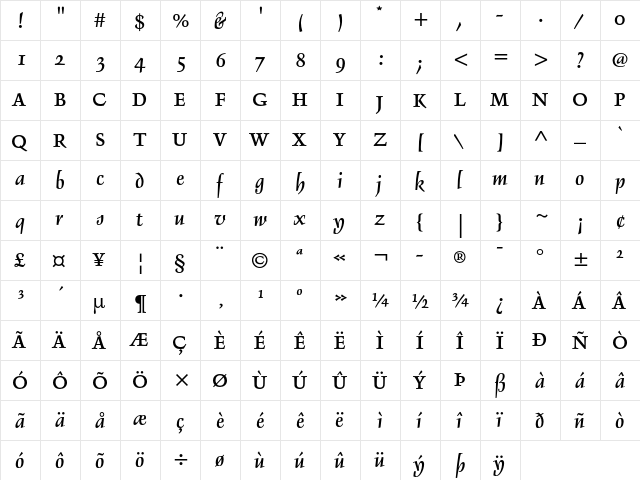
Delphin II Font Preview
Delphin II
Design Context for Delphin Typeface
Delphin is a composed and adaptable typeface that performs quietly and consistently across a wide range of design contexts.